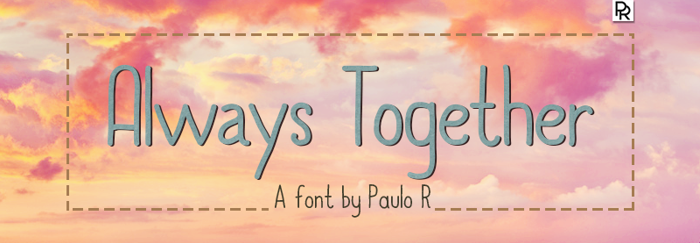
Always Together Font
Some things about the font you must know:
* This font has support for more than 40 languages;
* It comes with Stylistic Alternates, Stylistic Sets and other OpenType Features that you can use in programs like Photoshop, Illustrator, InDesign and many others...
The font Always Together was designed by Paulo R in 2014.